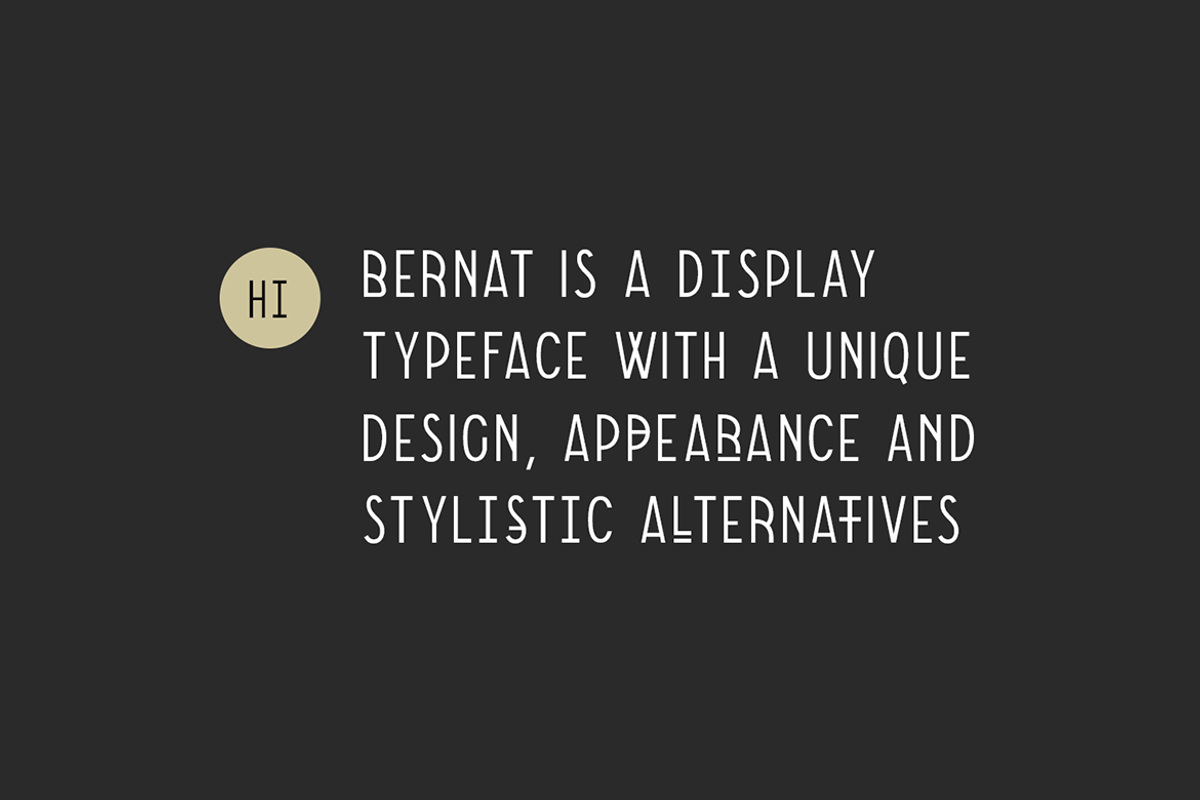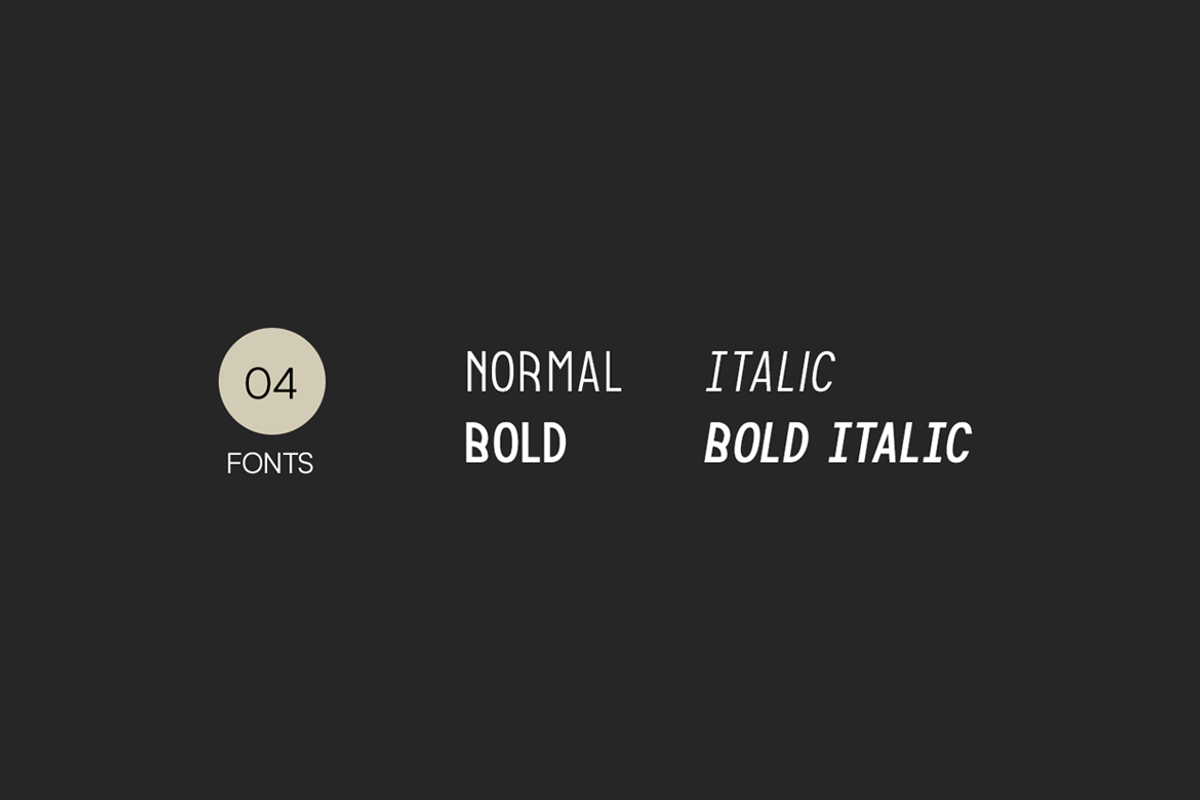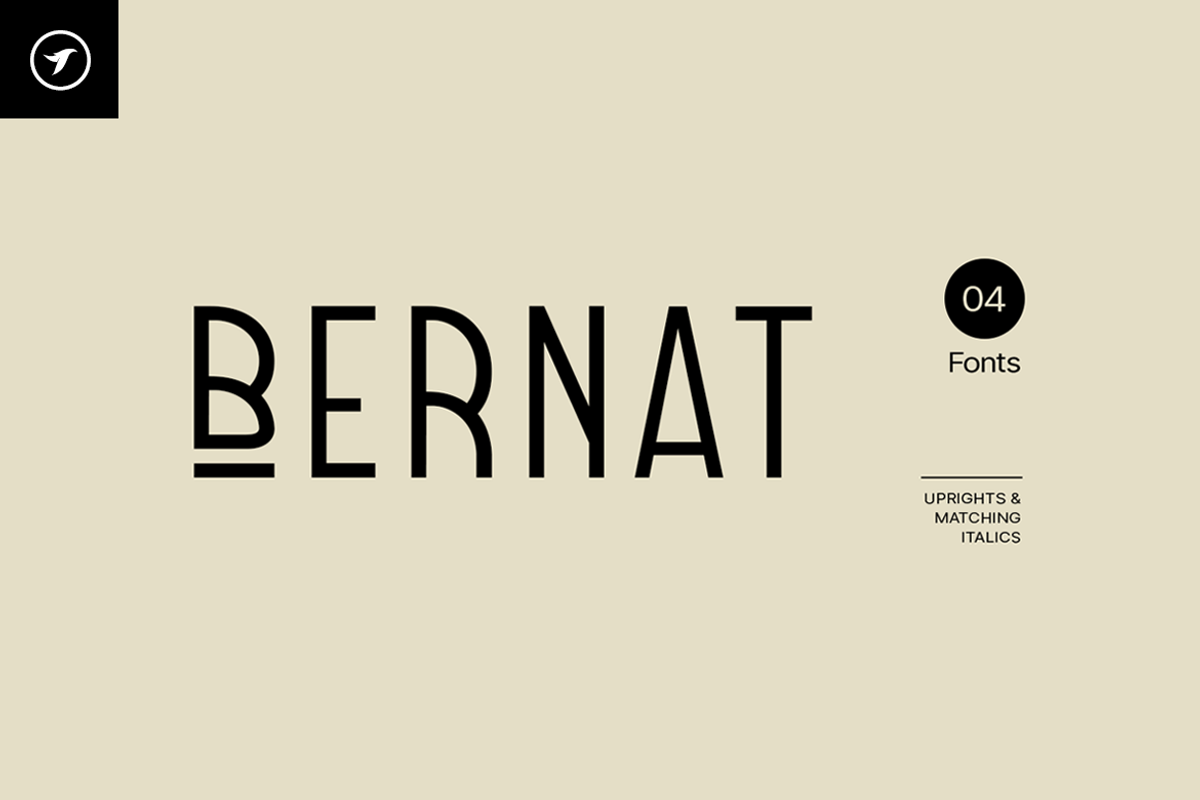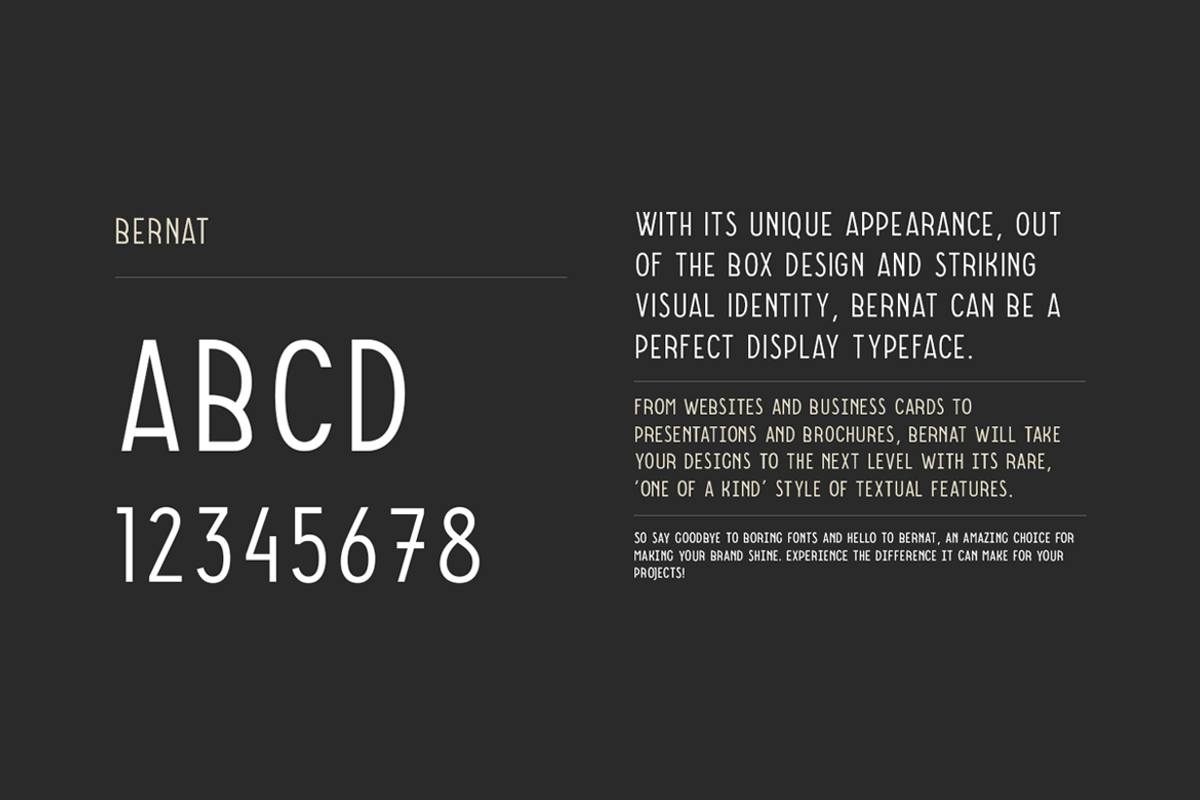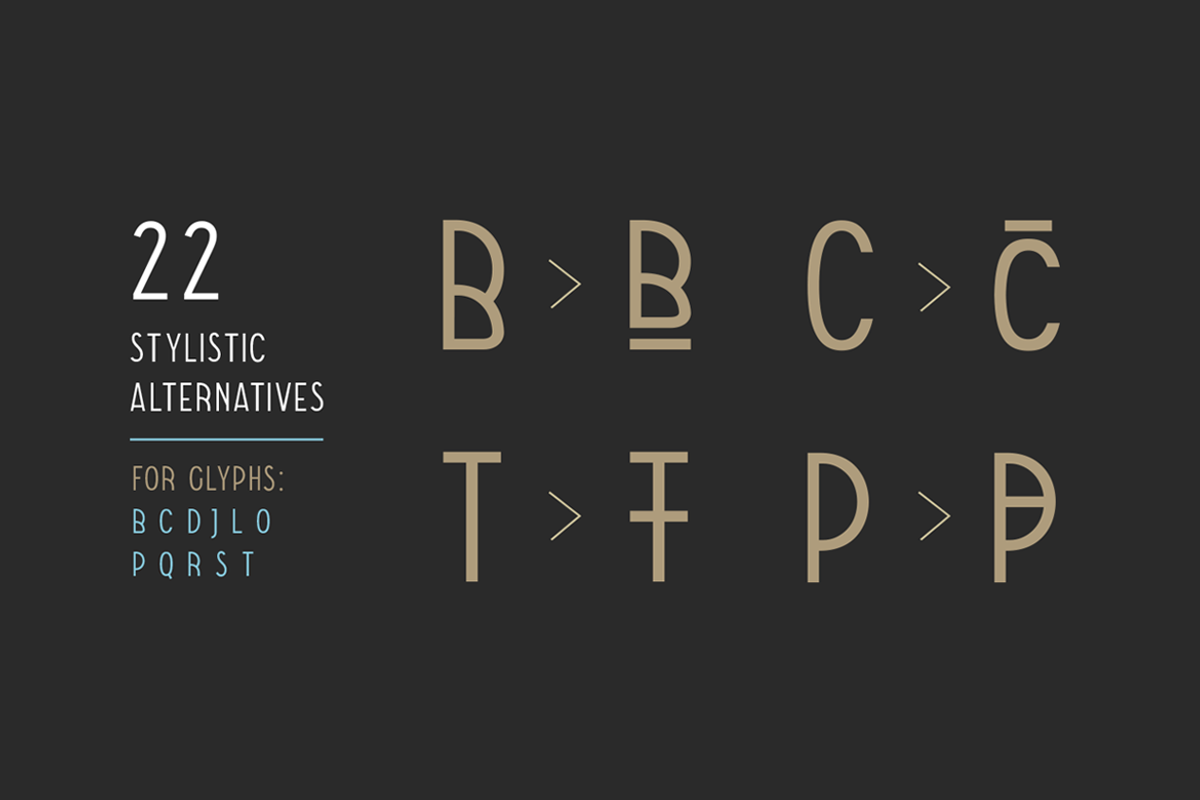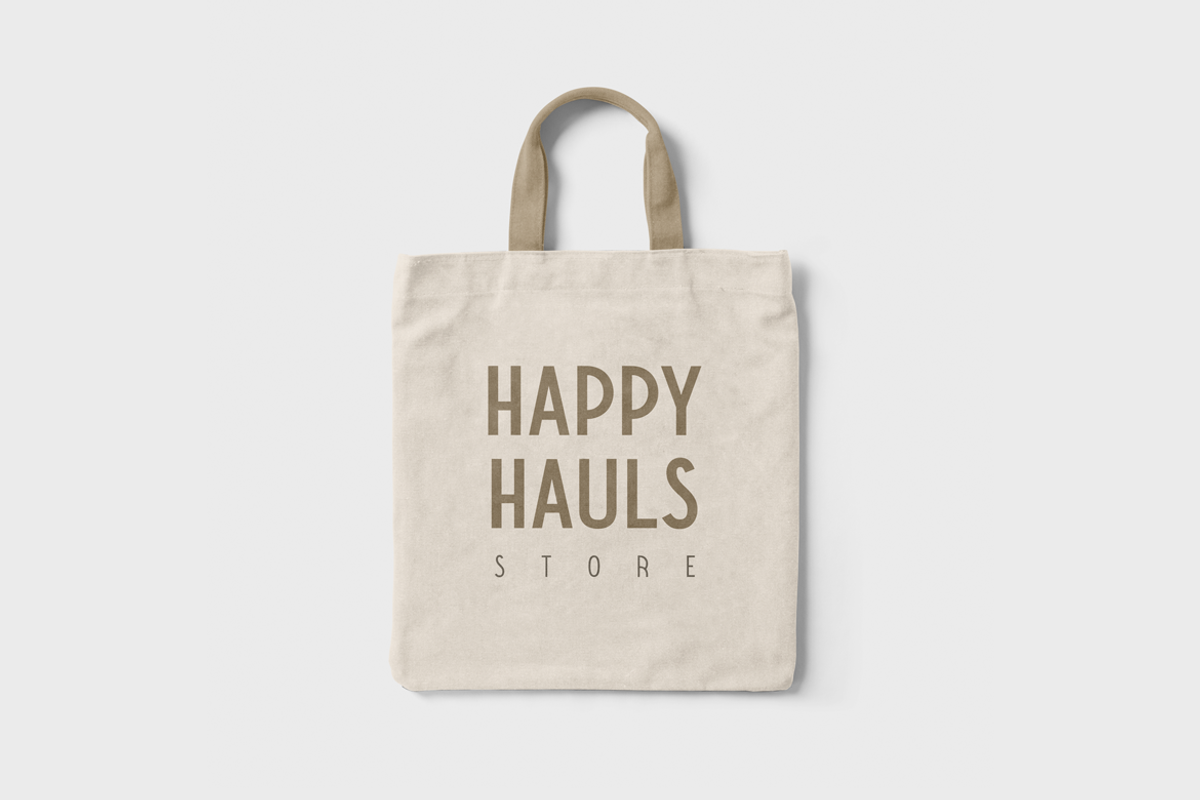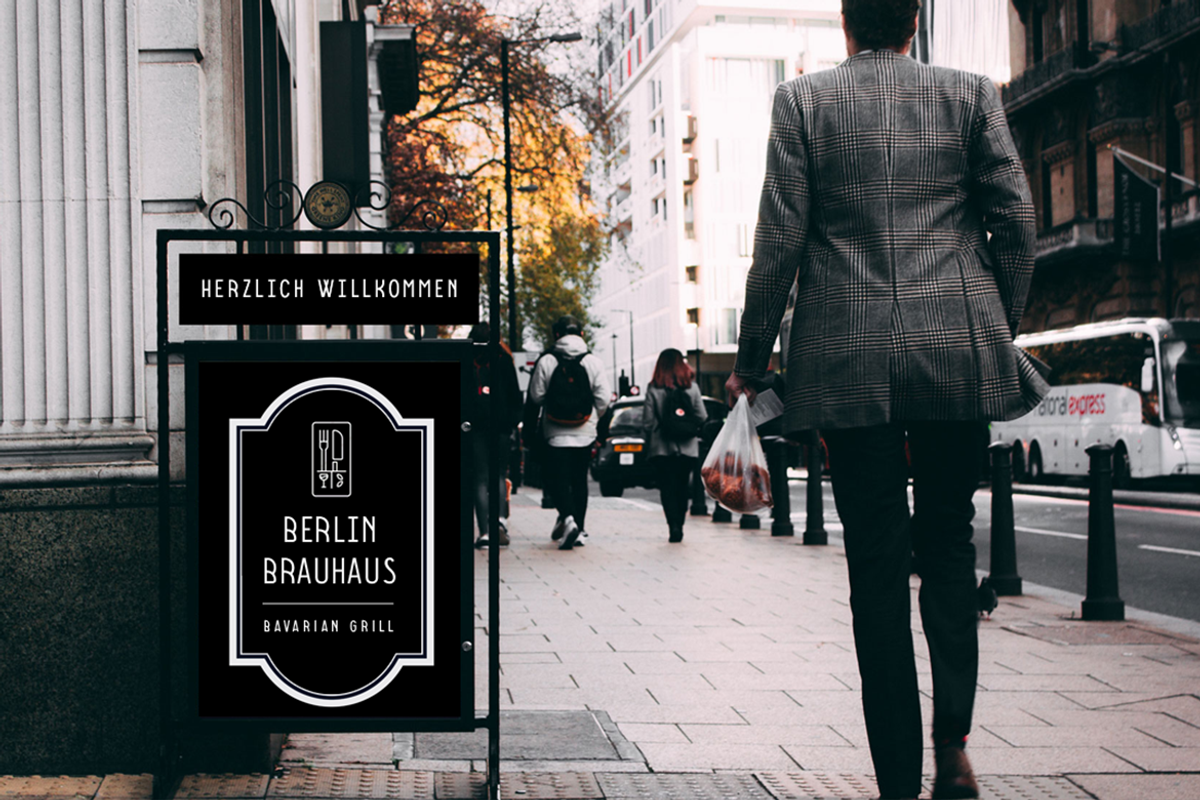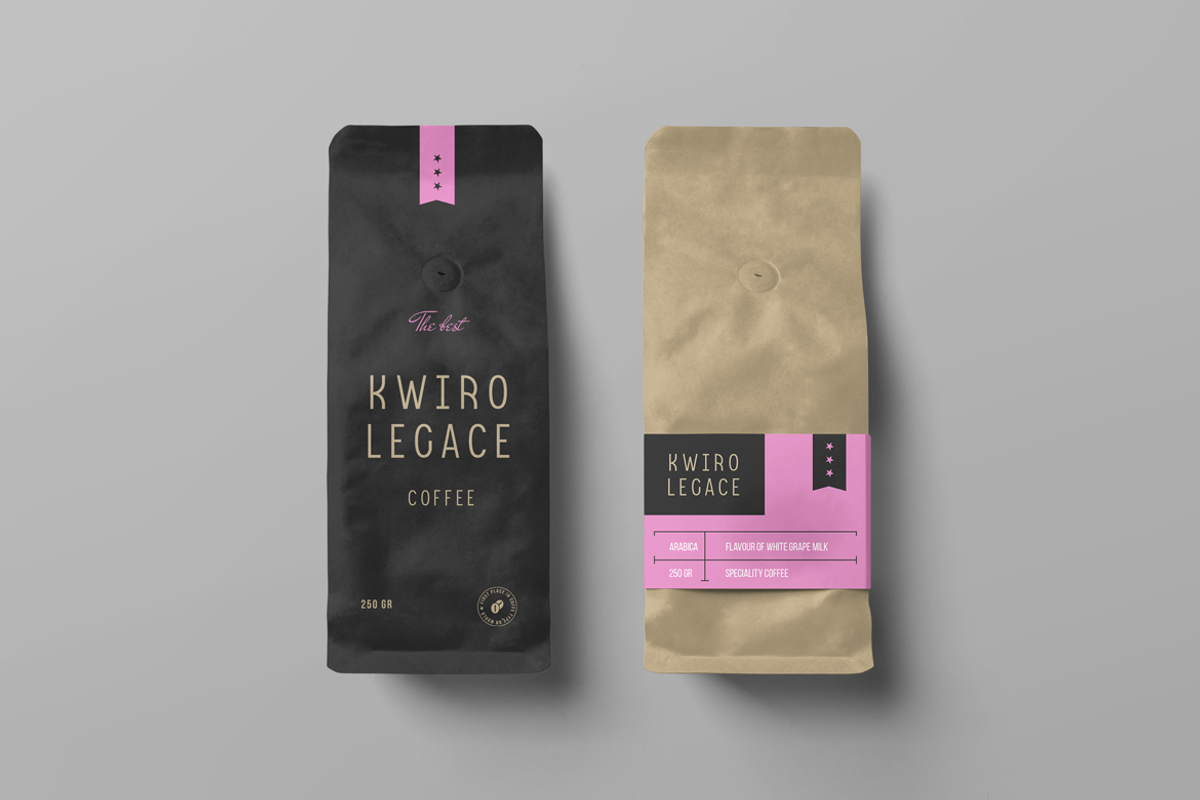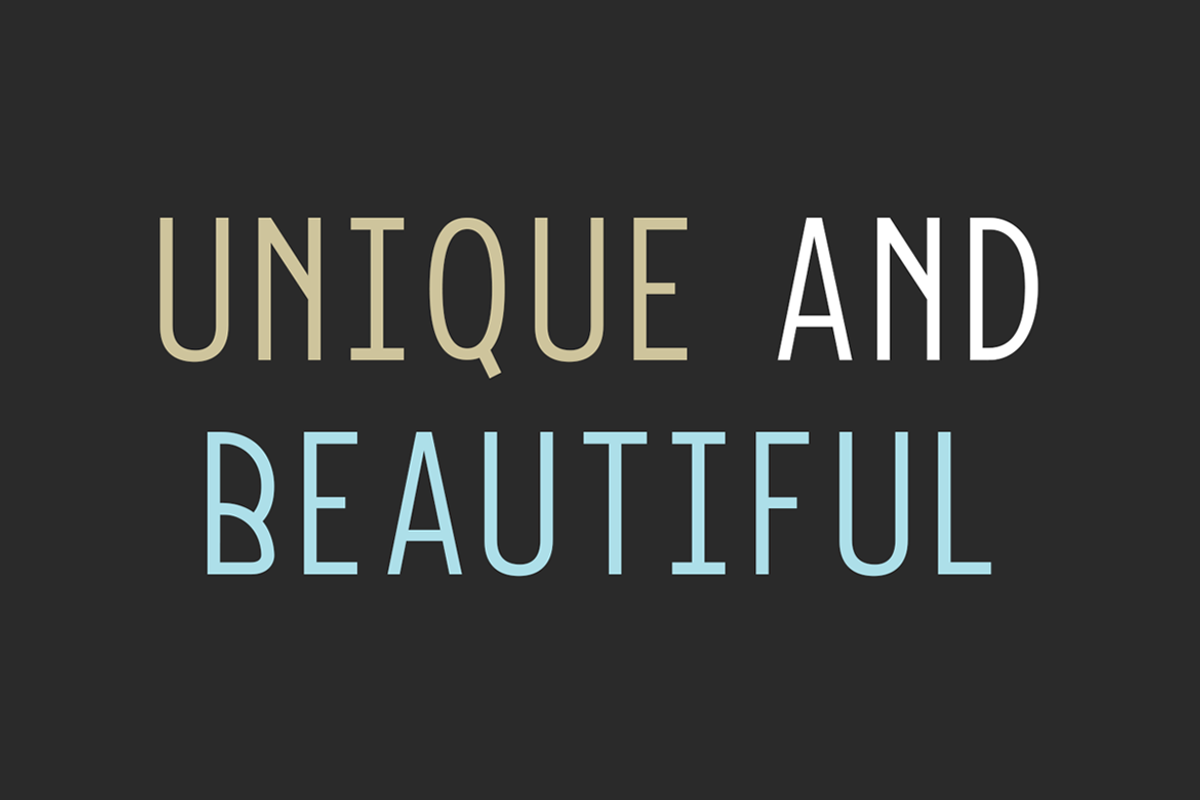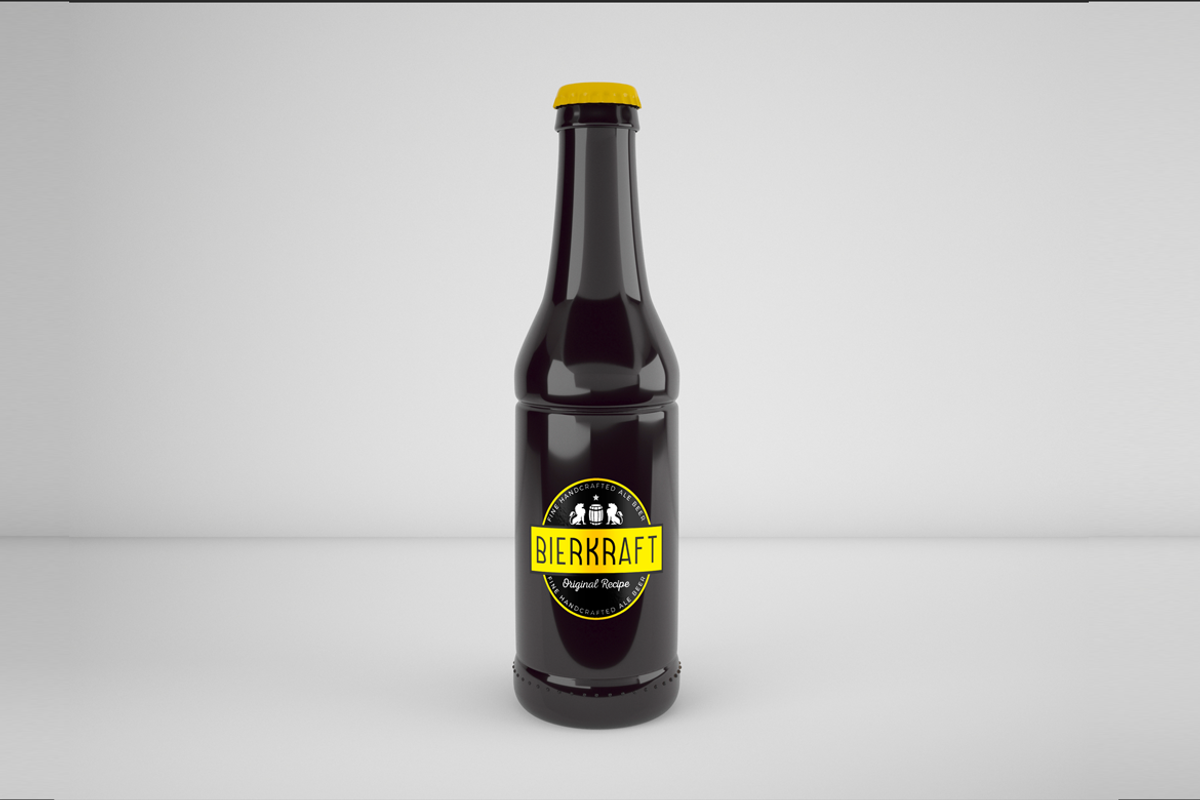
BERNAT - Unique Display Font
BERNAT is a unique display typeface perfect for headlines, big text, brandings, logotypes & graphic design purposes such as posters, flyers, and advertisements. This all-caps font can be an excellent choice for creating outstanding logos, promotional content, and marketing presentations that bring uniqueness and freshness.
The font is very flexible in terms of your creativity, you can adjust the letterspacing to design unique textual presentations, especially for creating amazing logotypes and branding designs. Please see the examples shown above to get an idea of the capability of this typeface.
BERNAT features a Stylistic Alternatives Set of 22 glyphs covering major glyphs which will give you more possibilities to create unique design combinations.
The BERNAT family includes 04 fonts (Normal / Bold) and italic versions of each weight. The pack contains OTF, and TTF as Desktop fonts and optional Web Fonts (all EOT, SVG, TTF, WOFF, and WOFF2 formats included) as licensing options.